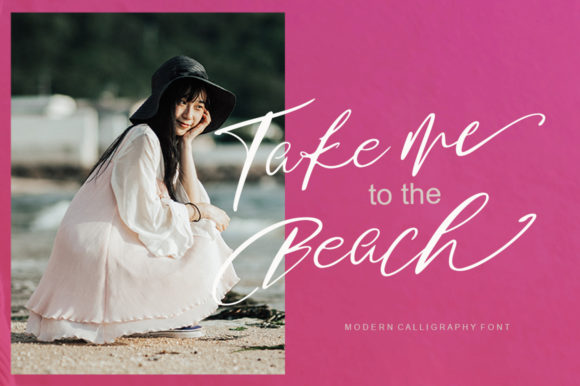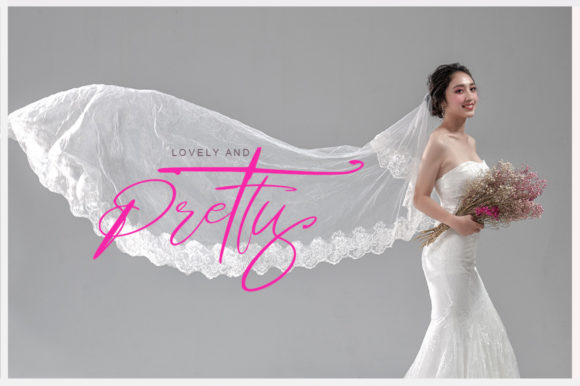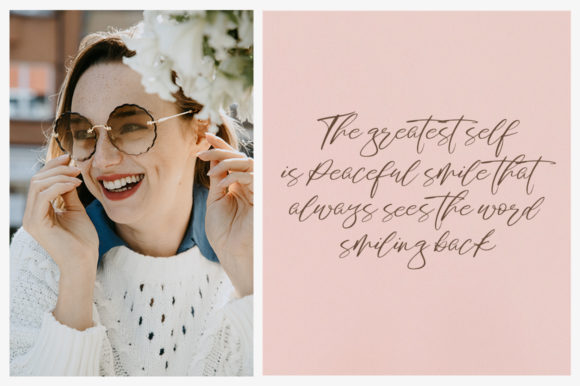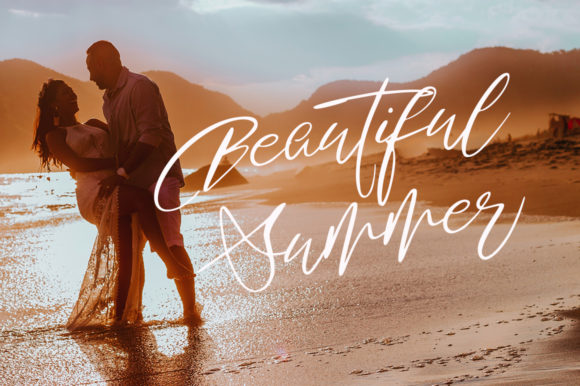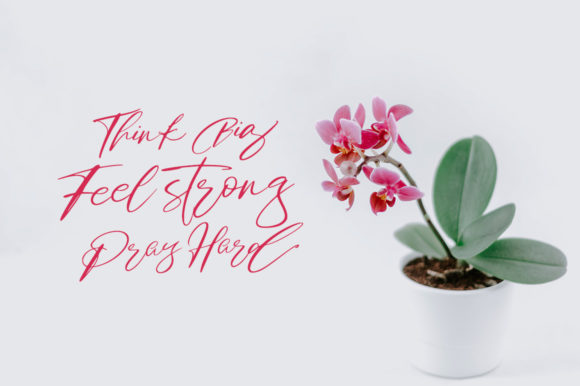
Introducing Dear Story Font: The Cute Handwritten Font that’s Stealing Hearts
Are you tired of using the same old fonts for your designs? Look no further! Dear Story Font is a charming handwritten font that’s taking the design world by storm. With its modern hand scratches and authentic feel, this font is perfect for creating stunning wedding invitations, beautiful stationery art, eye-catching social media posts, and adorable greeting cards.
What makes Dear Story Font so special?
Dear Story Font is a unique and creative font that boasts a range of features that set it apart from other fonts. Here are just a few of the things that make it so special:
- Ligatures: Dear Story Font comes with ligatures, which are special characters that combine two or more letters to create a single, flowing glyph. This adds a touch of elegance and sophistication to your designs.
- Alternate Stylistic: This font also features alternate stylistic sets, which allow you to switch between different versions of letters and numbers to create a unique look.
- Modern Hand Scratches: Dear Story Font has a modern, hand-scratch feel that’s perfect for creating designs that look like they were written with a pen or pencil.
Dear Story Font is a versatile font that’s perfect for designers and crafters of all levels. Whether you’re creating:
- Wedding Invitations: Use Dear Story Font to create beautiful, one-of-a-kind wedding invitations that will set the tone for the big day.
- Stationery Art: Add a touch of elegance to your stationery art with this gorgeous font.
- Social Media Posts: Make your social media posts stand out with Dear Story Font’s modern, hand-scratch feel.
- Greeting Cards: Create adorable greeting cards for any occasion with this cute and charming font.
Why Choose Dear Story Font?
With so many fonts to choose from, why should you choose Dear Story Font? Here are just a few reasons:
- Unique and Creative: Dear Story Font is a one-of-a-kind font that’s sure to make your designs stand out.
- Easy to Read: Despite its hand-scratch feel, Dear Story Font is easy to read and understand.
- Versatile: This font can be used for a wide range of design projects, from wedding invitations to social media posts.
- Authentic Feel: Dear Story Font has an authentic feel that’s perfect for creating designs that look like they were created by hand.
Tips for Using Dear Story Font
Here are a few tips for getting the most out of Dear Story Font:
- Experiment with Ligatures: Don’t be afraid to experiment with the ligatures and alternate stylistic sets to create a unique look.
- Pair with Other Fonts: Dear Story Font pairs well with other fonts, so don’t be afraid to get creative and try out different combinations.
- Use for Headings and Titles: This font is perfect for headings and titles, so use it to add a touch of elegance to your designs.
| Font Name | Dear Story Font |
| Author | Stripes Studio |
Dear Story Font is a charming handwritten font that’s perfect for designers and crafters of all levels. With its modern hand scratches, ligatures, and alternate stylistic sets, this font is sure to make your designs stand out. Whether you’re creating wedding invitations, stationery art, social media posts, or greeting cards, Dear Story Font is the perfect choice. So why wait? Fall in love with Dear Story Font and start creating gorgeous designs today!